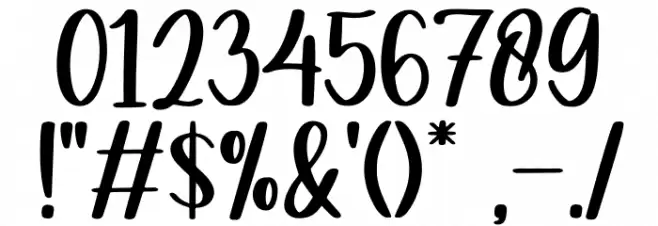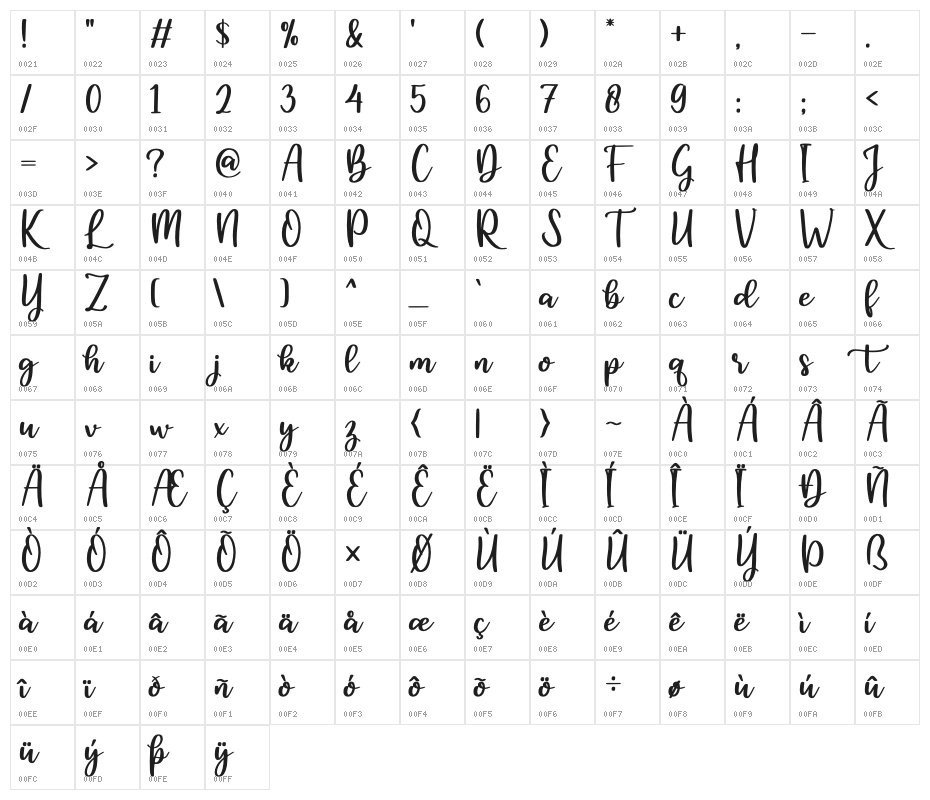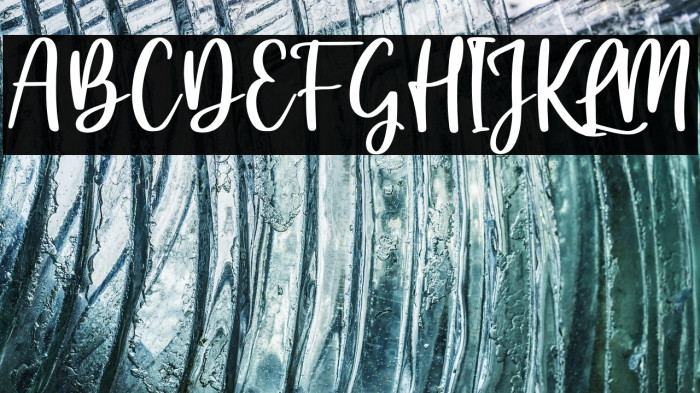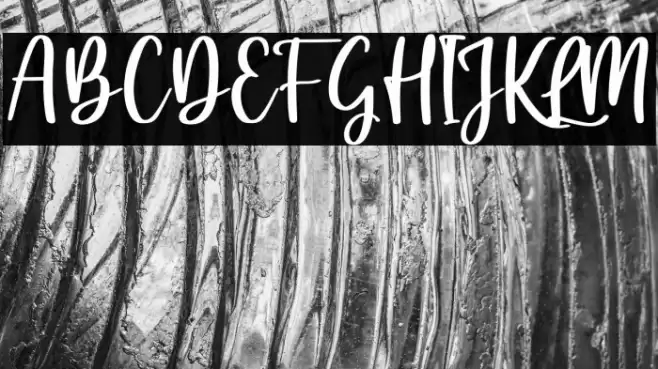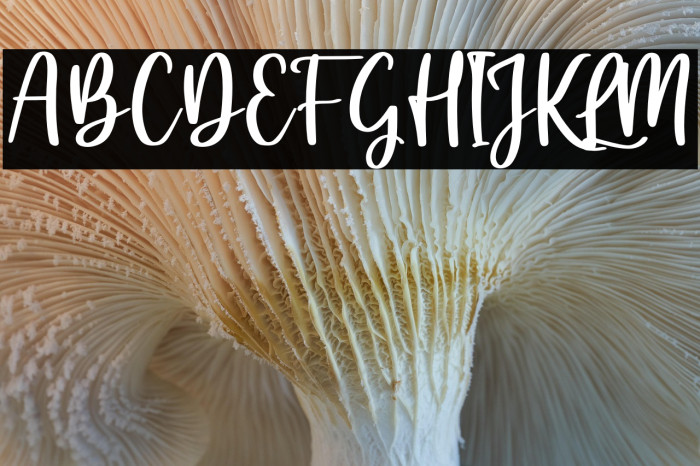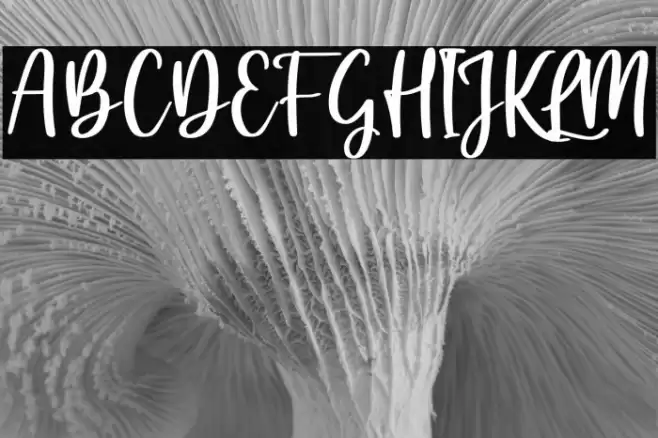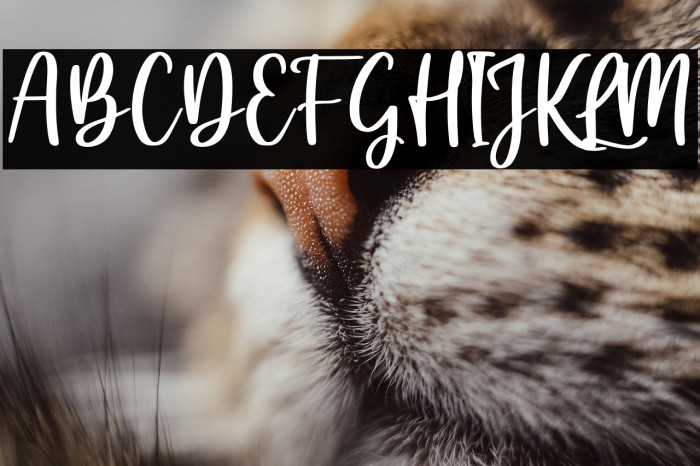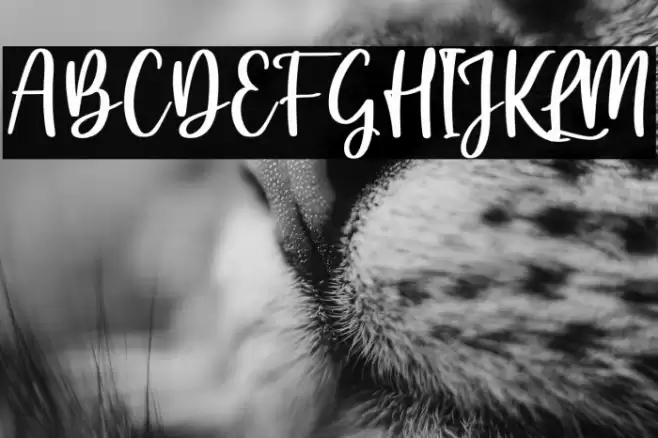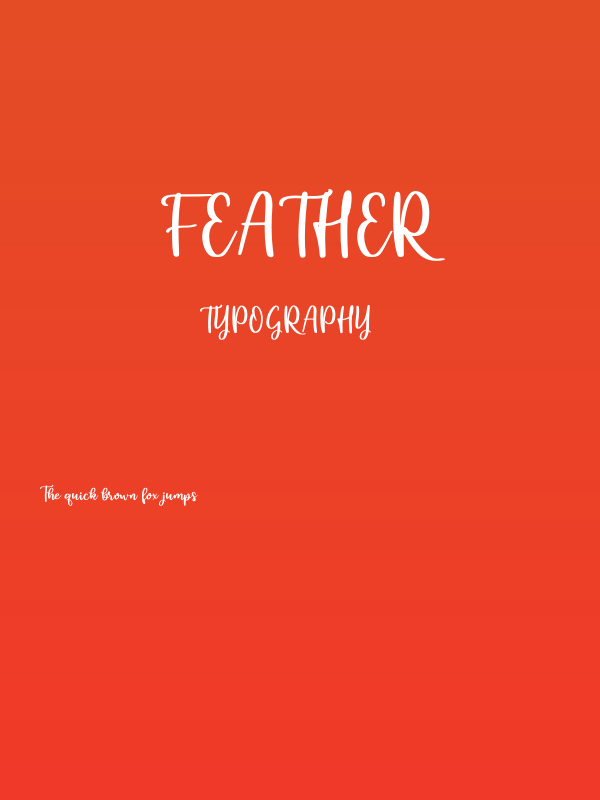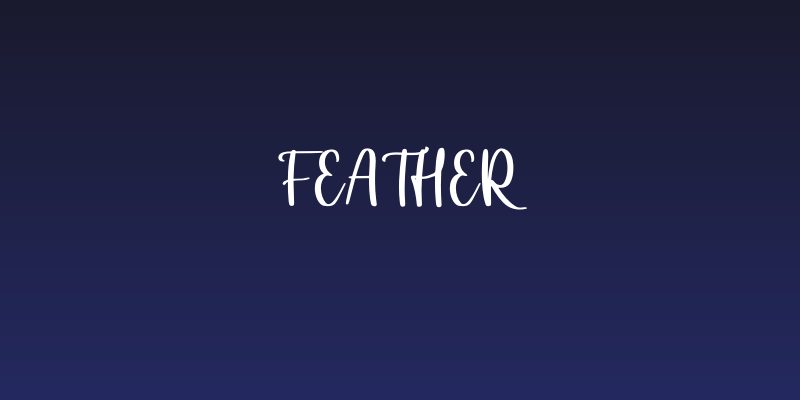
feather Font
feather Description
This font features a lively and flowing script style, characterized by its smooth, cursive letterforms that mimic the fluidity of handwriting. The uppercase letters are bold and expressive, with playful loops and swashes that add a touch of elegance. The lowercase letters maintain a consistent flow, enhancing readability while preserving the artistic flair. Numbers and special characters are crafted with the same attention to detail, ensuring a cohesive look across all text. This font exudes a sense of creativity and personal touch, making it ideal for projects that require a humanistic and approachable feel.